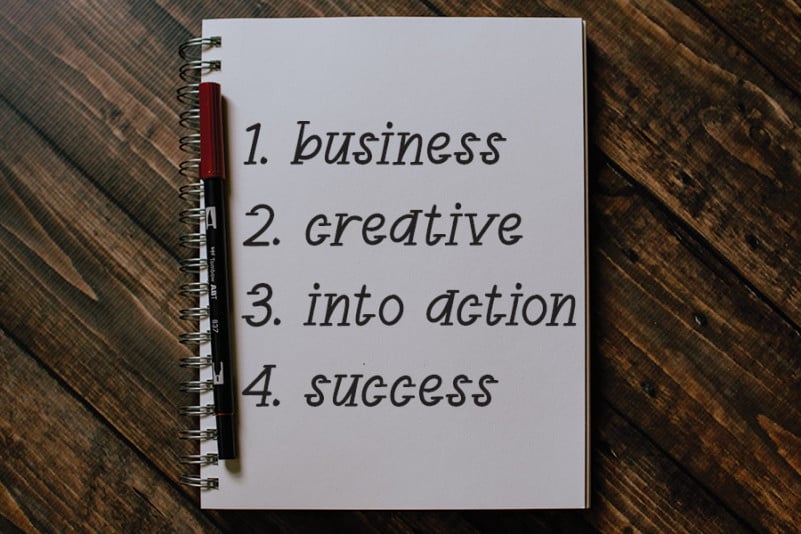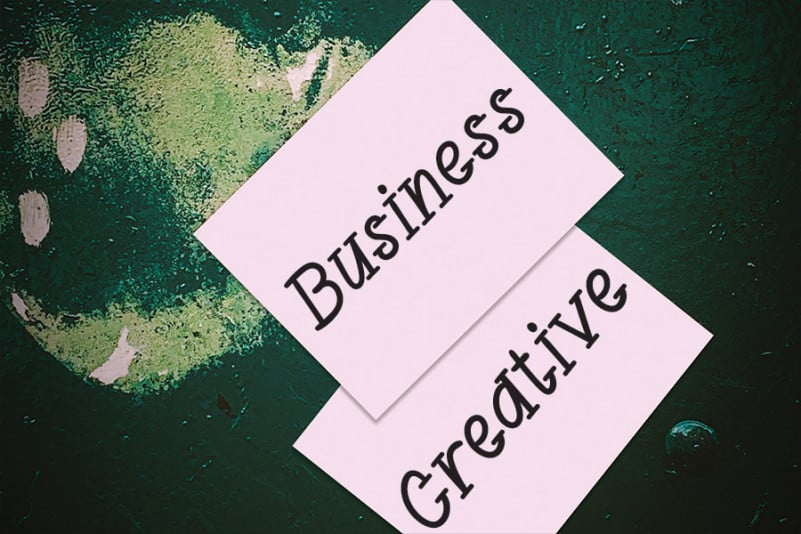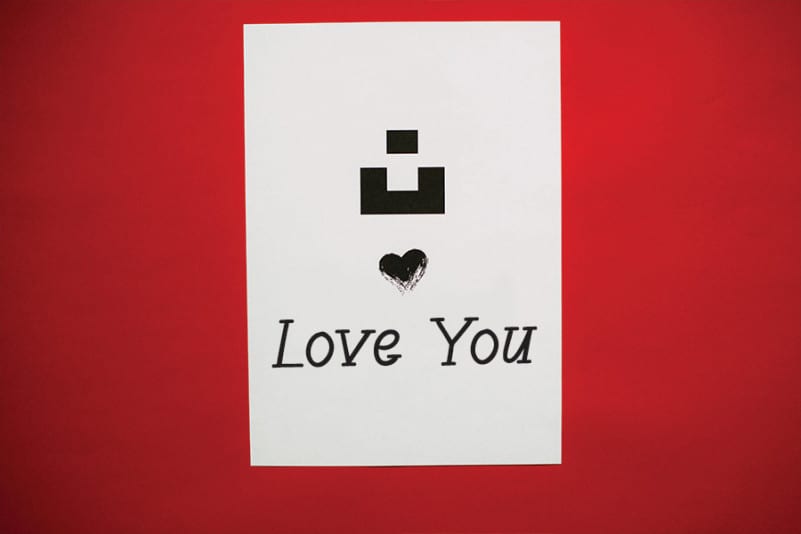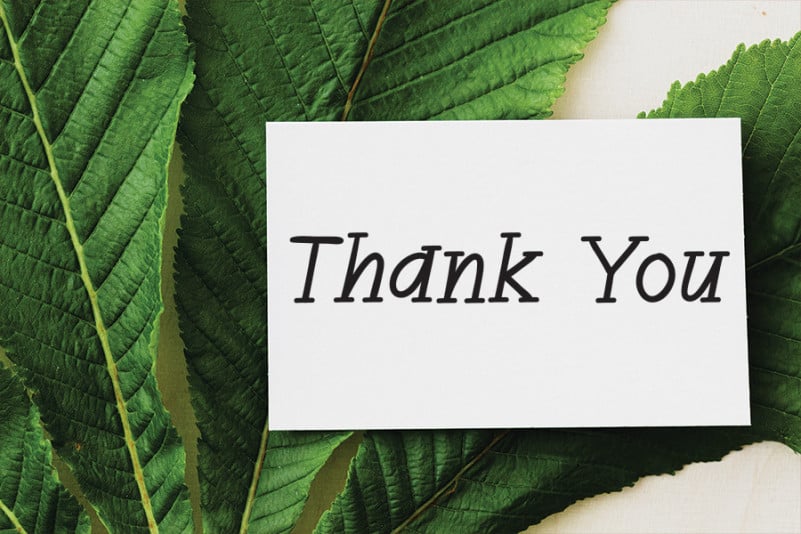
Day Flower Display Font
Day Flower Display Font is a sweet and friendly handwritten font. Its natural and unique style makes it incredibly fitting to a large pool of designs. The only limit is your imagination!